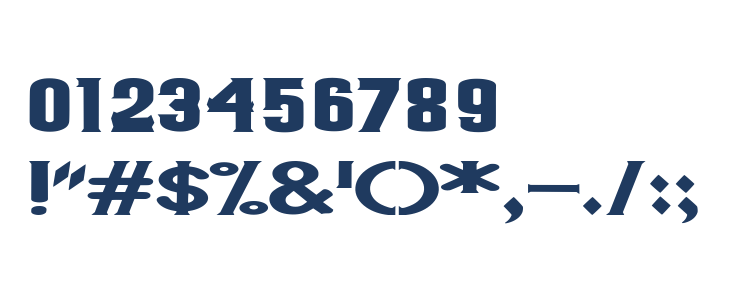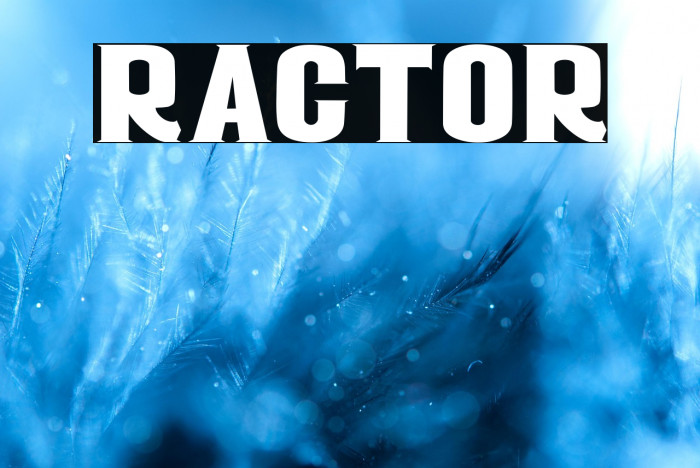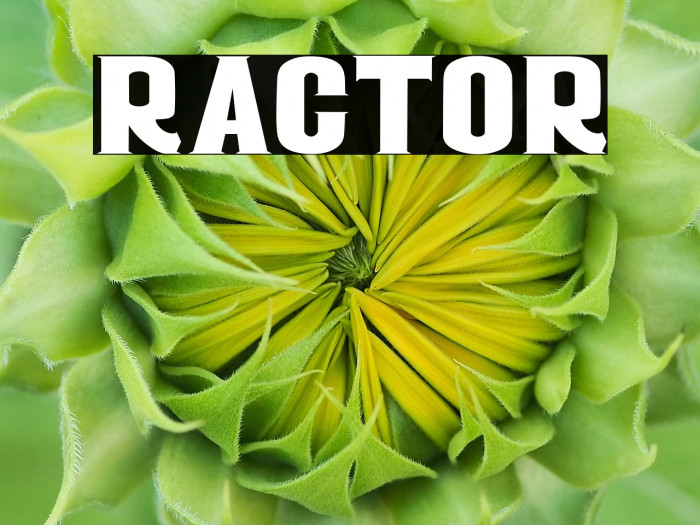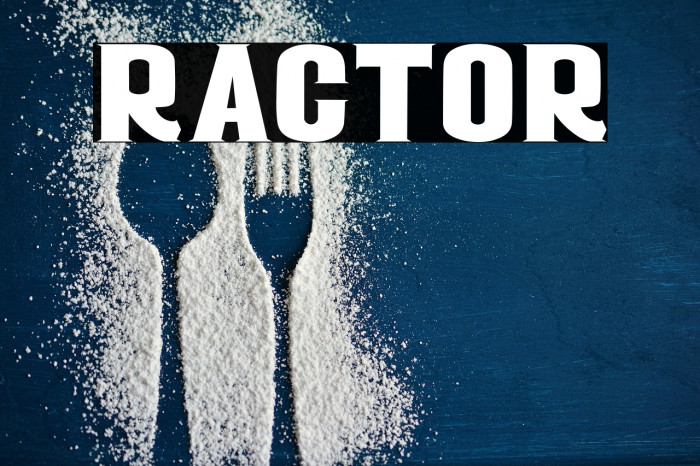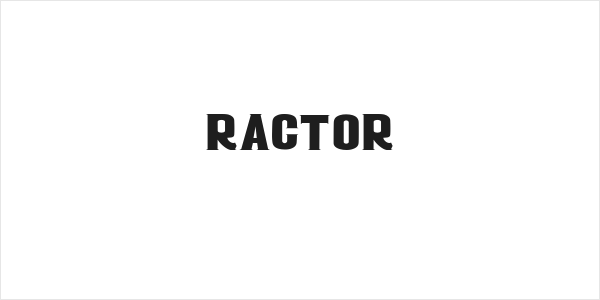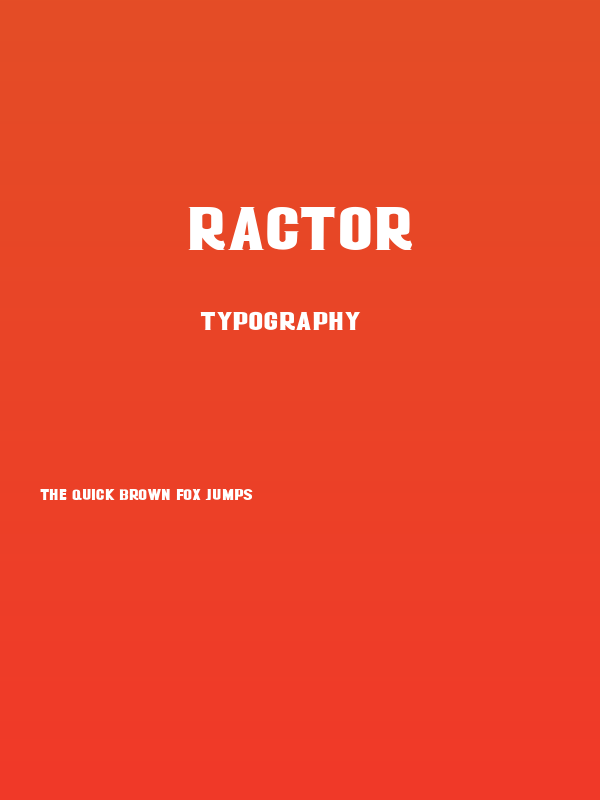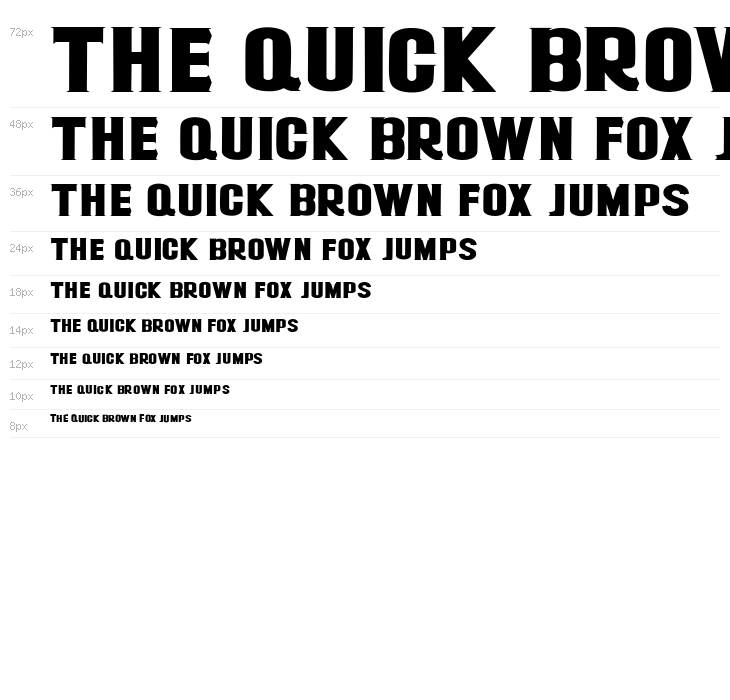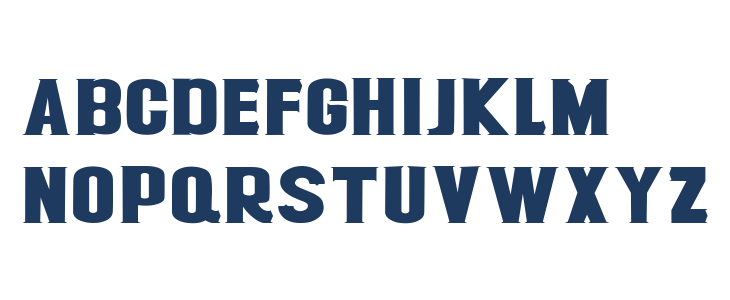
RACTOR Font
RACTOR Description
This font features bold, impactful characters with a strong presence, ideal for making a statement. The letters are designed with a distinct geometric style, incorporating sharp angles and clean lines. The uppercase and lowercase letters maintain a consistent weight, ensuring uniformity across text. The numbers and special characters are crafted to match the boldness of the alphabet, making them suitable for attention-grabbing designs. The overall appearance is modern and assertive, perfect for projects that require a strong visual impact.